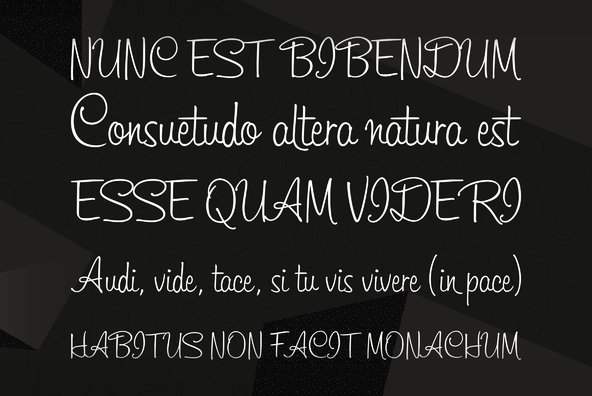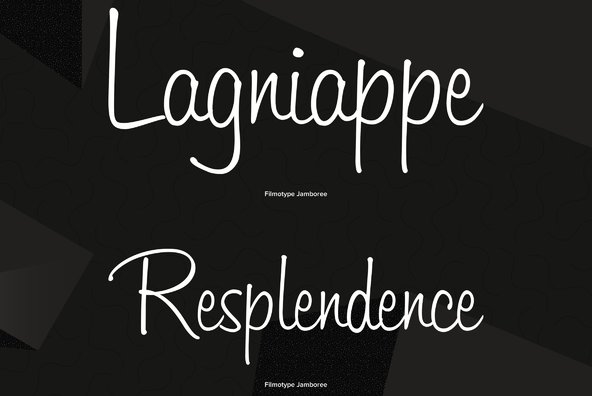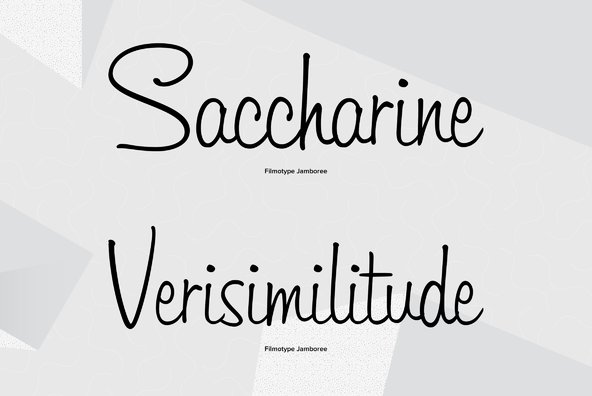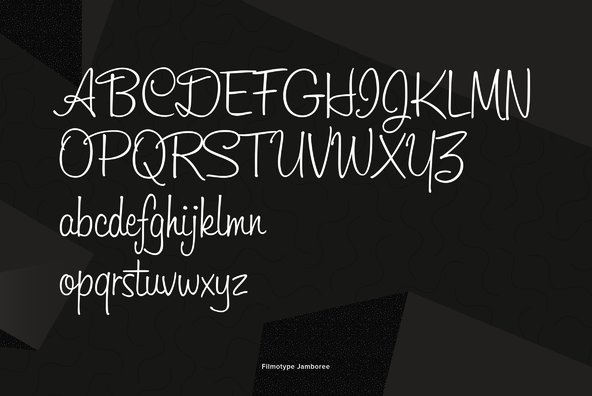
Filmotype Jamboree was released by Filmotype in mid-1960s to expand its Scripts category with a smart looking fresh informal upright pen-script!
Filmotype Jamboree was developed from the original font filmstrips and includes a full international character compliment, automatic fractionals, ordinals, and a very large set of alternate contextual and ending characters and ligatures to allow flawless typesetting in dynamic OpenType format.